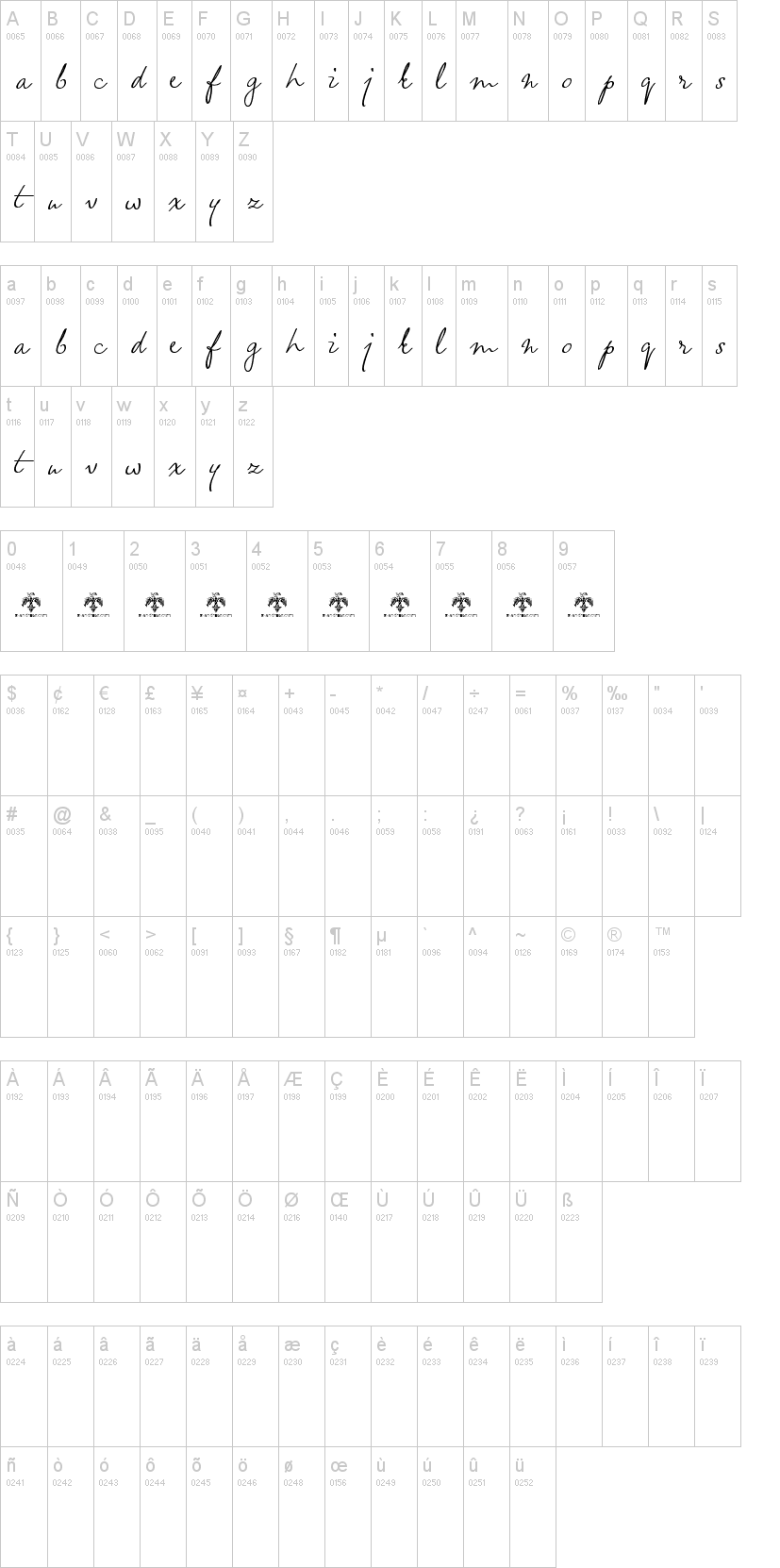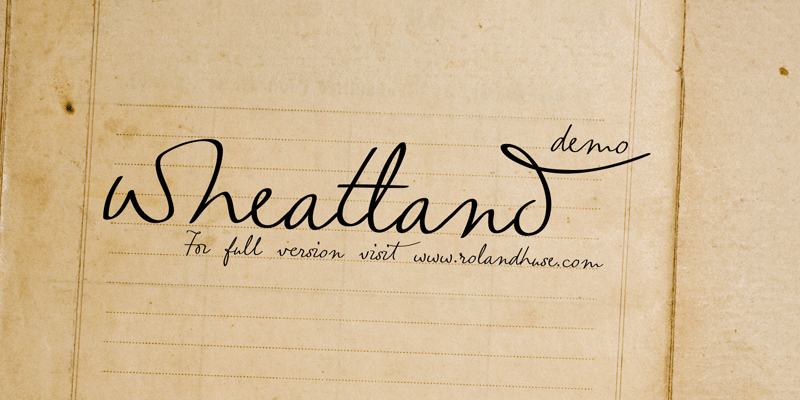
Note of the authorWHEATLAND-DEMO is a demo version of a handwriting interpretation font. Contains only lowercase and their alternates and connecting pairs for testing purposes so you can try if it works for you.